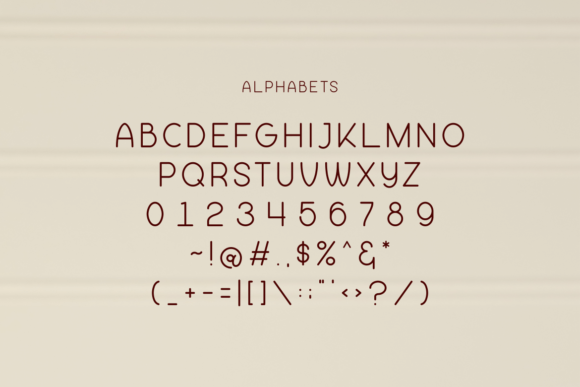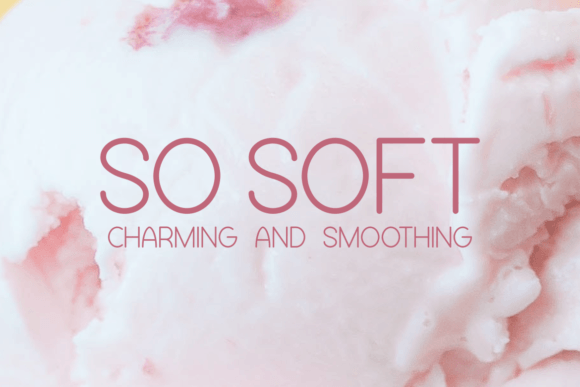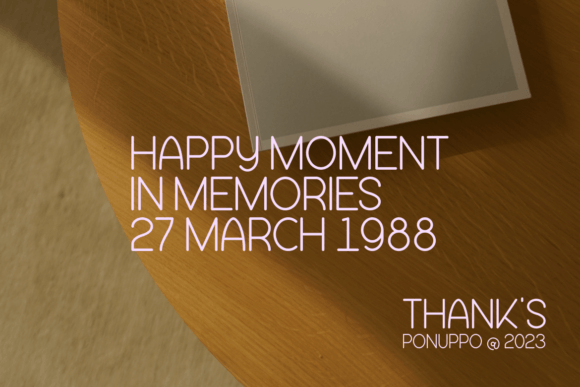
Introduction to Joeman Font
As designers, we’ve all been there – staring at a blank canvas, searching for the perfect font to bring our creative project to life. It’s a moment of clarity, when the right typeface can elevate our entire design and transport it to a new level. For many of us, that moment comes when we discover the understated beauty of the Joeman Font.
This elegant sans-serif font has been a game-changer for designers seeking a high-quality, versatile typeface that exudes sophistication and refinement. With its clean lines, thin letterforms, and excellent legibility, Joeman Font is the perfect design resource for any creative project, from branding and editorial design to digital content. And the best part? It’s available for free download, allowing designers to unlock its full potential without breaking the bank.
Key Features of Joeman Font
- High-quality font with a unique and creative style, perfect for various design projects.
- Designed to be versatile and suitable for a wide range of creative projects, from branding and advertising to digital art and typography.
- Includes a comprehensive character set, covering a wide range of languages and alphabets, making it a valuable resource for global design projects.
Honest Review: Joeman Font
As a designer, I’m always on the lookout for high-quality fonts to elevate my creative projects. Recently, I stumbled upon the Joeman Font, and I’m excited to share my honest review with you.
Here are the things that work well: ✨
- Unique and stylish design: Joeman Font has a distinct, elegant feel that sets it apart from other fonts.
- Transparent background: The transparent background makes it easy to place over any image or design element.
However, I did encounter some limitations: ⚠️
- Limited character set: The font only comes with a limited character set, which may not be ideal for long-form text.
- Not suitable for body text: While Joeman Font is perfect for headlines and titles, it may not be the best choice for body text due to its stylized nature.
Overall, I’m impressed with the Joeman Font. It’s a high-quality, versatile font that can add a touch of elegance to any design. While it has its limitations, I believe it’s a valuable resource for designers working on creative projects.
How to Use Joeman Font
Joeman Font is a high-quality design resource that can elevate your creative projects to the next level. With its unique style and transparent background, it’s perfect for adding a touch of sophistication to your designs.
Tips for Getting the Most Out of Joeman Font
To get the most out of Joeman Font, try combining it with other design elements, such as graphics and images, to create unique and visually appealing designs. You can also experiment with different font sizes and colors to add emphasis and create contrast.
Joeman Font is perfect for a variety of design projects, including logos, graphics, presentations, and documents. It’s also great for creating social media graphics, posters, and flyers.